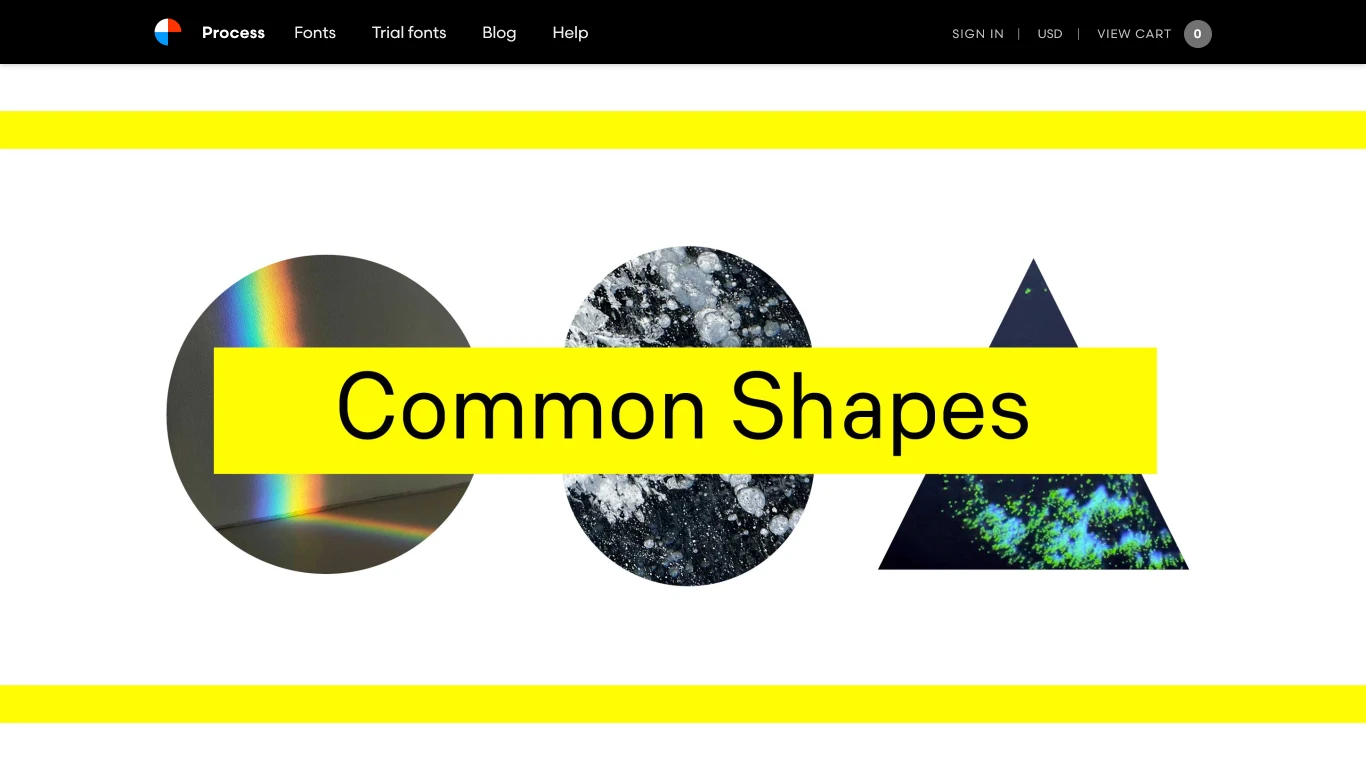
Process Type Foundry
2002
Process Type Foundry is a Minneapolis-based independent type foundry founded in 2002 by Eric Olson (later joined by Nicole Dotin). The studio specializes in both retail and custom font design, producing renowned typefaces like Klavika (along with Condensed and Display variants), Seravek, Colfax, Capucine, Stratum, Locator, Maple, Kettler, Recipient, Sculpin, and Recent Grotesk, among others. These typefaces have seen widespread adoption across branding, corporate identities, magazines, broadcast graphics, exhibitions, and websites internationally. The foundry has also partnered with platforms like Typekit (now Adobe Fonts) since 2010, making families like Bryant, Klavika, Locator, and Seravek available as web fonts. What sets Process Type Foundry apart is its balance of rigorous design and versatility—creating fonts that are simultaneously functional, contemporary, and artistically expressive, under the leadership of Olson (with Dotin)—with each design rooted firmly in both form and utility.